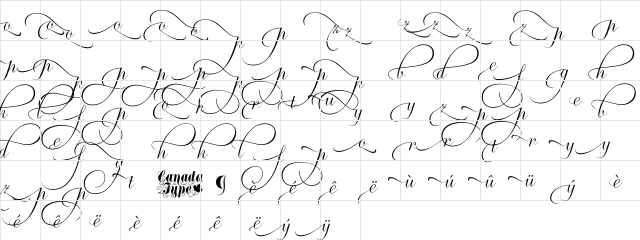
Ambassador Script Begs III Regular
| Foundry | Canada Type |
| Designer | Rebecca Alaccari |
Design Context for Ambassador Script Begs III Typeface
Ambassador Script Begs III brings a calligraphic fluidity to the page — its connecting strokes and expressive curves give it an unmistakably human quality.